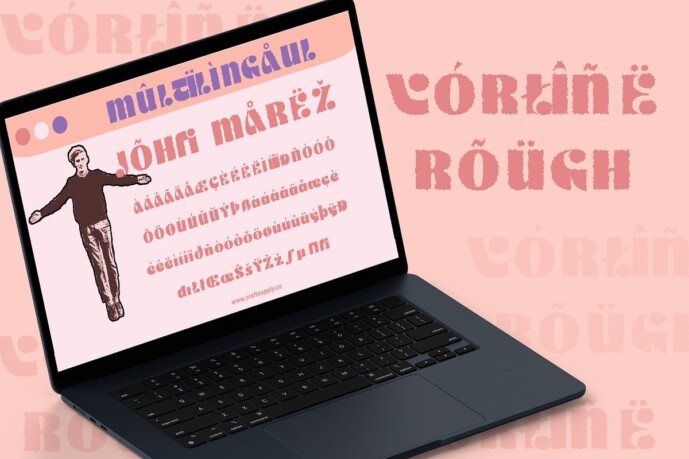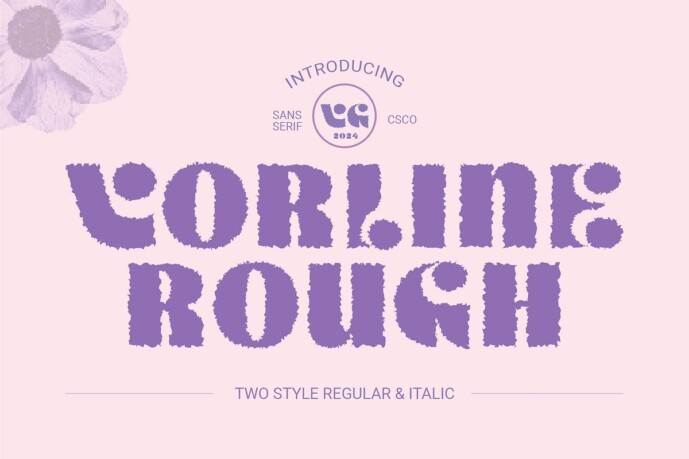
Vorline Rough Font
Vorline Rough Font: Retro Funk with Vintage Charm. Bold Sans Serif Display Vorline Rough boasts a bold sans serif display that grabs attention with its striking presence. Its thick strokes and clean lines make it perfect for headlines and titles.
Funky Retro Vibes Infused with funky retro vibes, This font exudes a sense of nostalgia and playfulness. Its unique style adds a touch of whimsy to any design project.
Fun and Playful With its fun and playful demeanor, This font injects energy and excitement into your creations. Its lively personality makes it ideal for projects that demand a sense of whimsy.
Vintage Display Effect Enhanced with a rough effect, This font acquires a vintage display aesthetic that adds depth and character. This effect lends an air of authenticity and nostalgia to your designs.
Vorline Rough – Bold, Funky, and Vintage This font combines boldness, retro flair, and vintage charm to create a font that stands out in any project. Whether you’re aiming for a funky retro vibe or a vintage display effect, This font delivers with its bold sans serif style and rough texture.